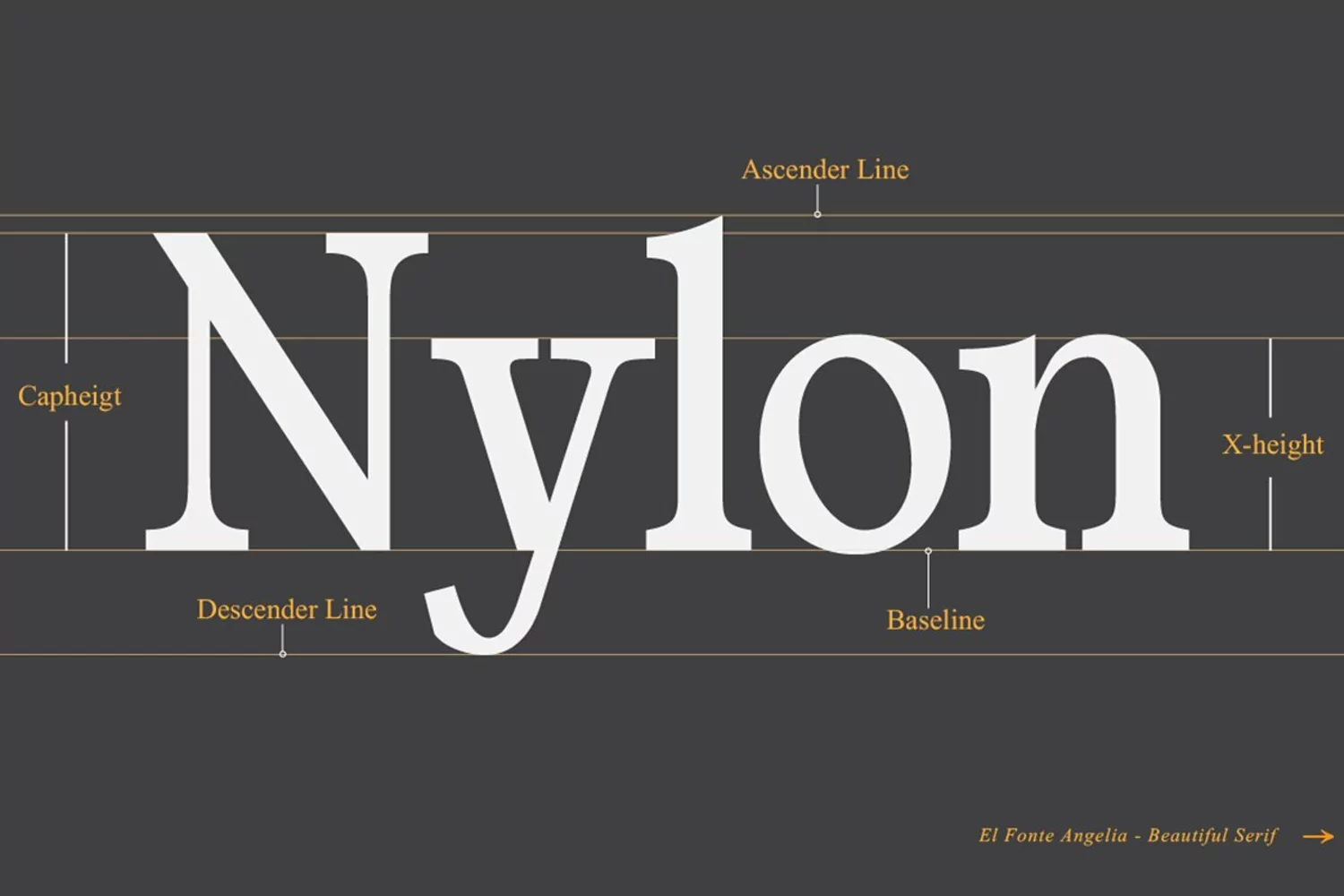
Introducing a new Font " El Fonte Angelia " Beautiful Serif Type Family is inspired by the serif typefaces used in editorial media in the 70s and 80s.such as the soft and gentle shapes found in Cooper or the fluid, angled strokes in Windsor— mixed into one single design that features familiar, fresh, modern flavors.
Designed to reflect nature, it creates a sense of natural softness and expressiveness. We pushed the concept into a usability focused direction, to work as a bold tool and beautiful communicator.
El Fonte Angelia variable allows fluid design across 5 weights. The font broadens its use by supplying weights all the way from Light to Bold. The natural curves, swells and sloping trunks, grow in character as the font gains weight. Whilst the thinner weights have lowered contrast and optical corrections to create a warm and gentle appearance.
El Fonte Angelia character set incorporates additional symbols, stylistic alternates, unique ligatures and case sensitive punctuation - producing a stable workhorse family ready to tackle projects of any size.The type family melds organic curves and gentle repetition into powerful and harmonious type. At large point sizes you can appreciate the letter shapes, whilst the same restraint and focus creates an even texture for small point sizes and long reading.
Its variety of weights provide a range of choices that will help you find the best typographic color for your project. Lighter weights are well-suited for body text while heavier ones are ideal for high impact headlines. The available stylistic alternates offer a number of different characters that give your logo or business card a unique look. Thank You